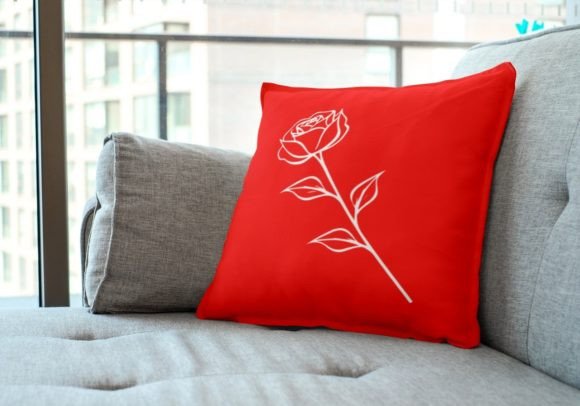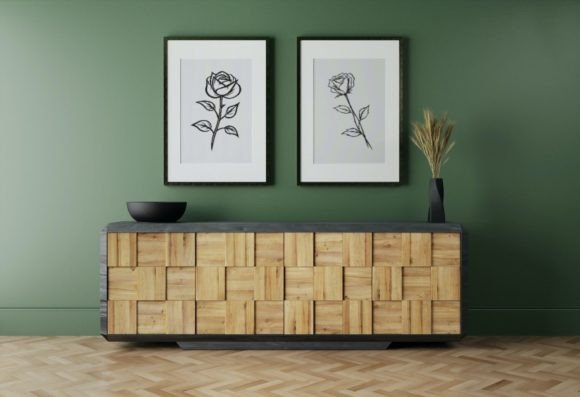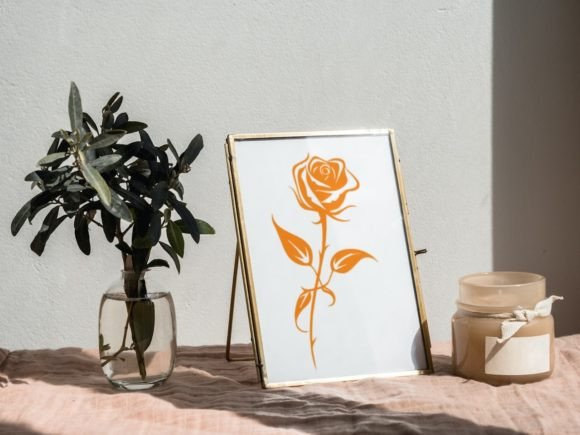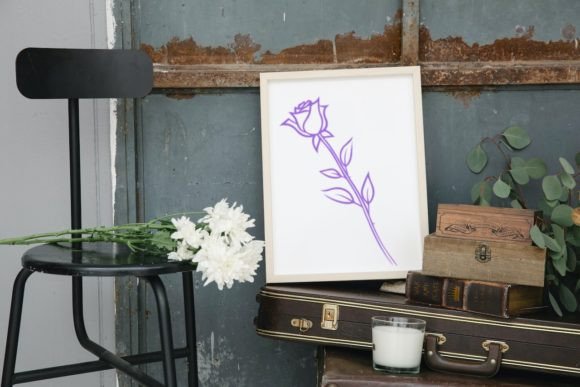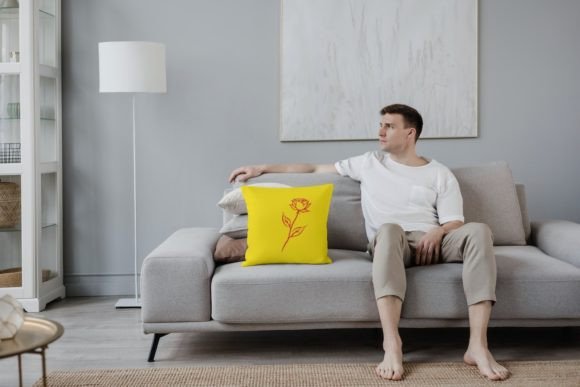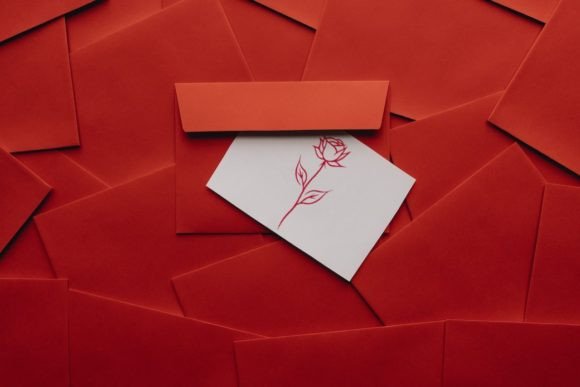
Inspiration Rose Font – Free Download
Introduction to Inspiration Rose Font
Introducing Long Stem Rose Dingbats Fonts: Craft elegance with 36 unique rose-inspired designs, ideal for any creative project.
Key Features of Inspiration Rose Font
Why Choose Inspiration Rose Font?
Inspiration Rose Font offers exceptional quality and versatility, making it a valuable addition to your design toolkit. Whether you’re creating for personal projects or commercial use, Inspiration Rose Font delivers professional results.